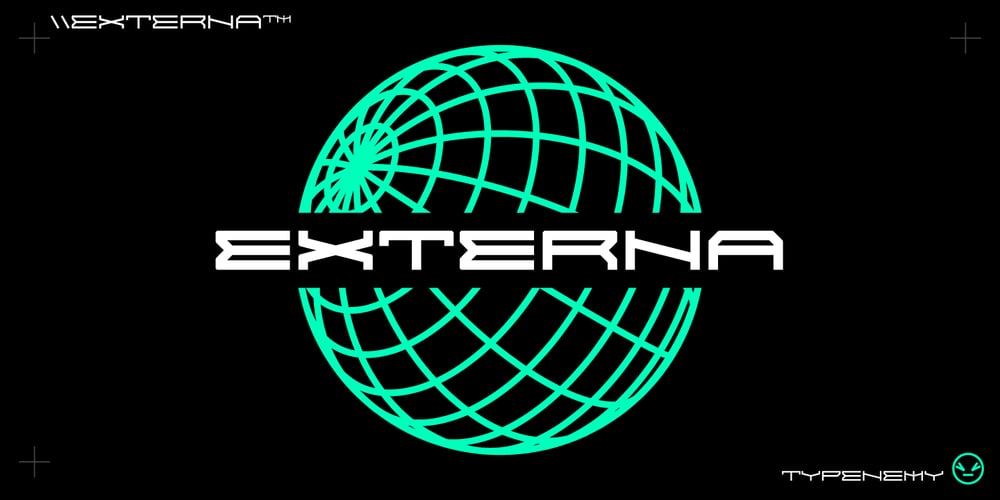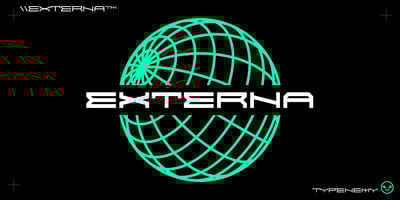
Externa Font Family was designed by Franz Cosentini and published by Typenemy. Externa contains 5 styles and family package options. Externa™ is inspired by science fiction culture. A typeface to be used in the outer space, outside the atmosphere of our planet. Perfect for logos, film, video games, packaging, signs, album covers and more.Included in Externa™:Support for over 94 languages.Over 400 glyphs.Take your designs to the future with Externa™.Please note: artwork is not included with font purchase. The images above are intended as Externa™ examples of use only.Externa™ was designed and created by Franz Noise.Designer: Franz NoisePublisher: TypenemyFormat: OpenType OTFRelease date: 2020/2021